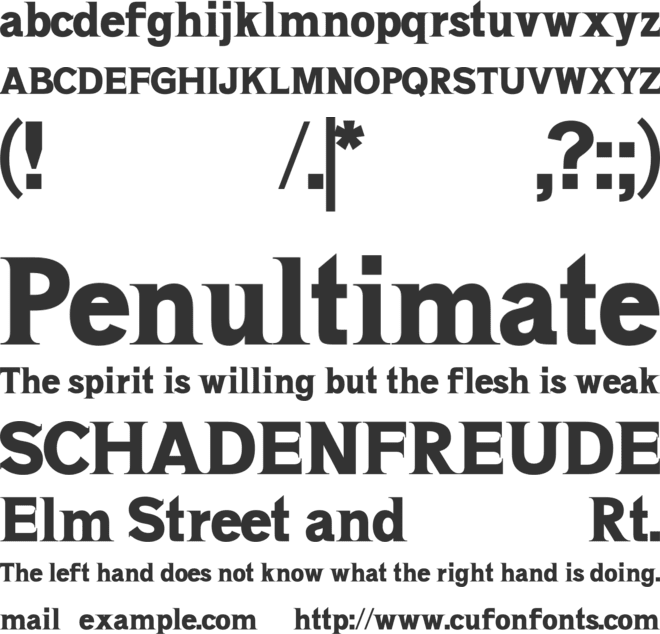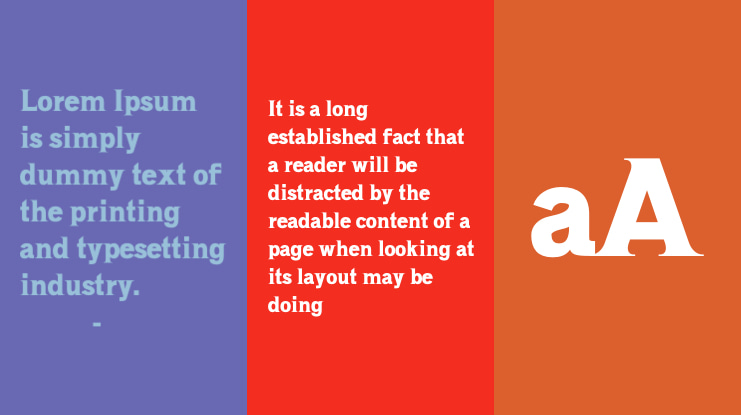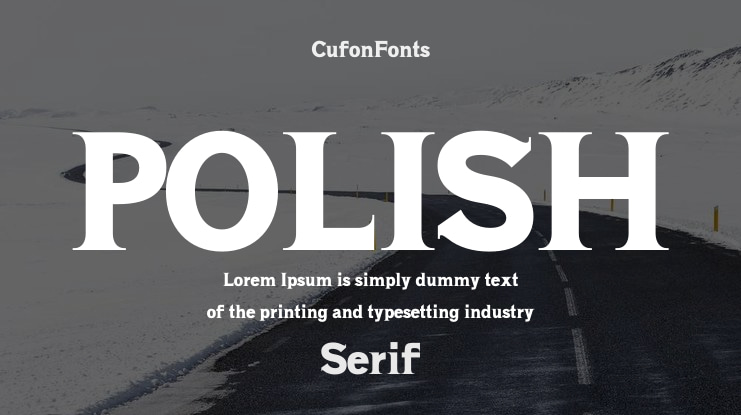
POLISH Font
🎨 Font Name: POLISH by Minimalist Art Studio
🎨 Font Description: Polish is an authentic serif typeface with bold elegance, multilingual support, and minimalist charm—ideal for luxury branding, editorial design, packaging, and high-end digital projects.
✔ Complete Latin set + multilingual diacritics
✔ Alternates, stylistic sets & ligatures
✔ Numbers, small caps, and extended punctuation
✔ Bonus italics and family styles